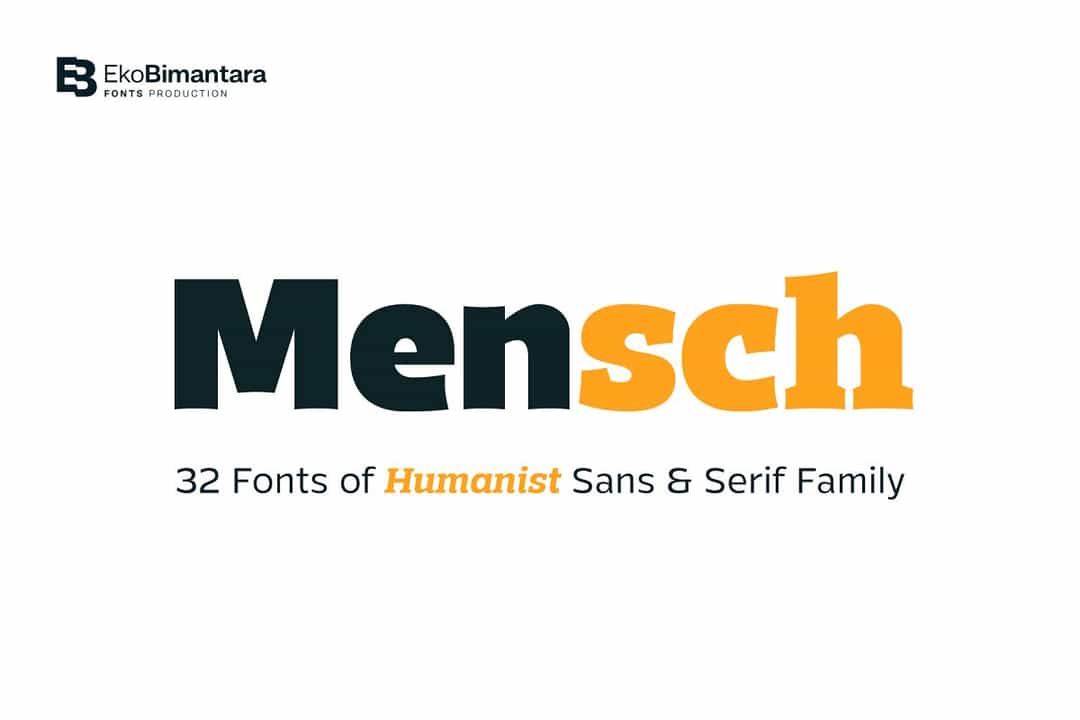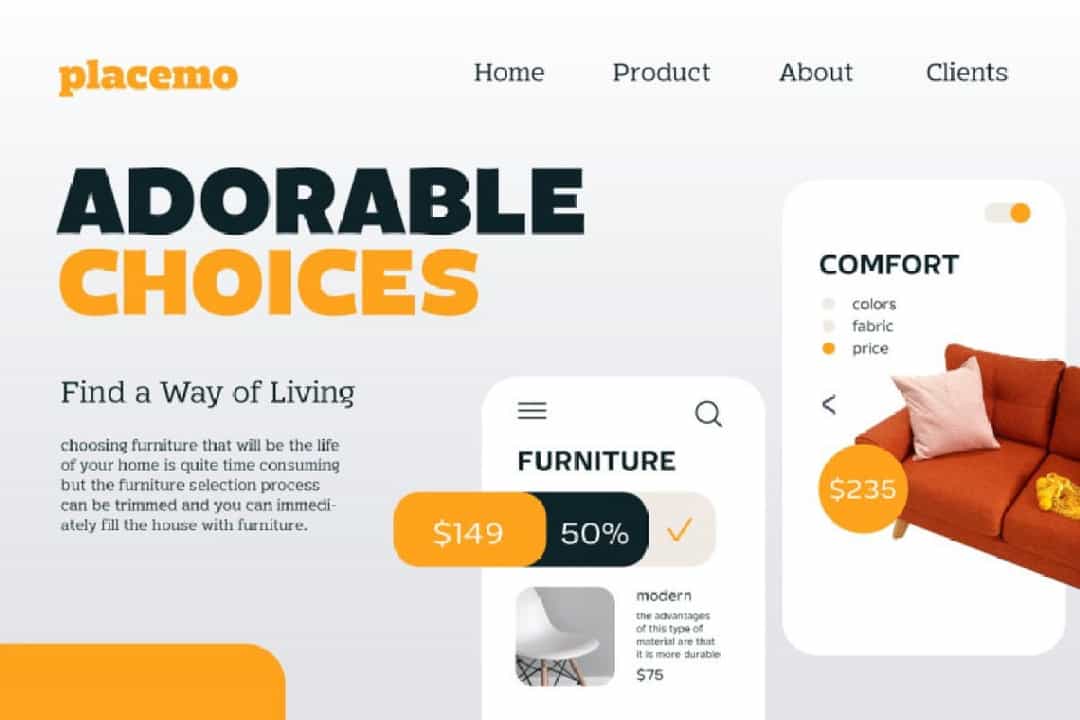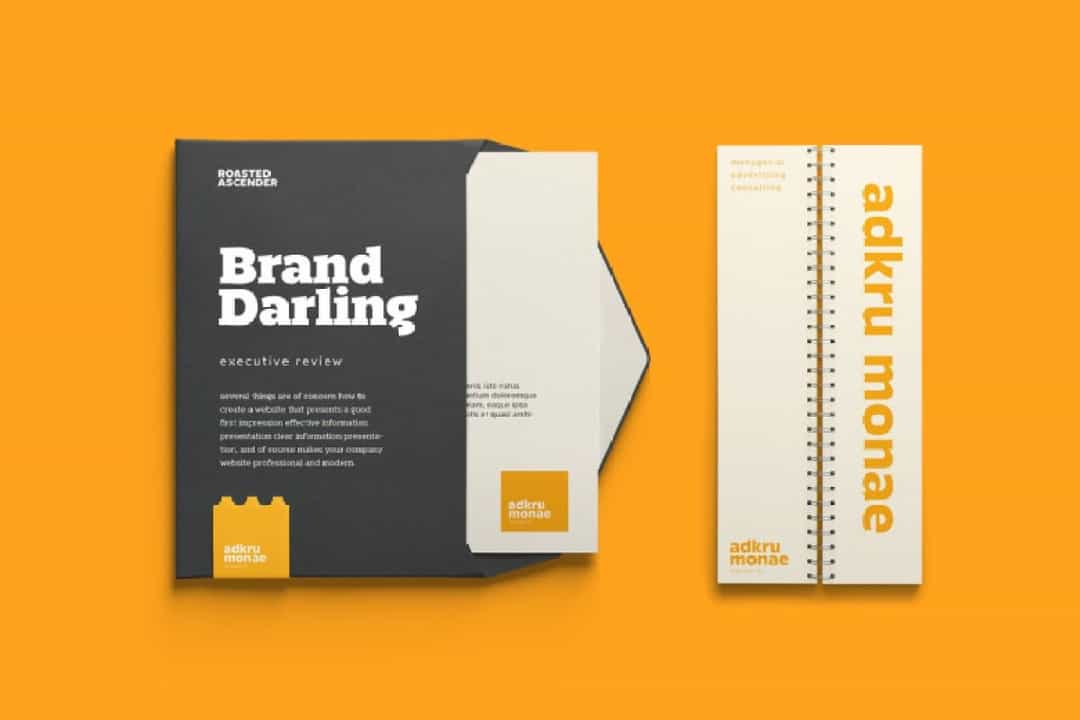
Mensch is a humanist sans serif font that includes all types of characters that have large, tall x height letters with low caps and wide apertures and counters with sunken and diagonal stroke endings suitable for both large display and small sizes.